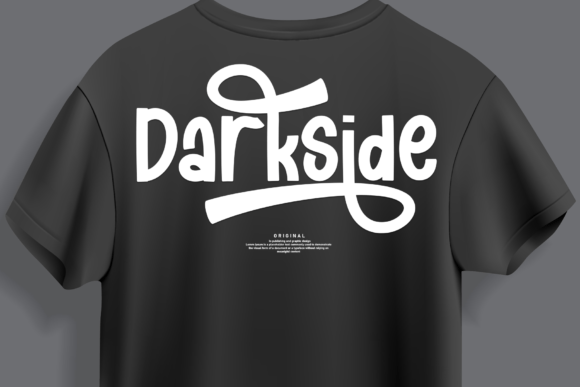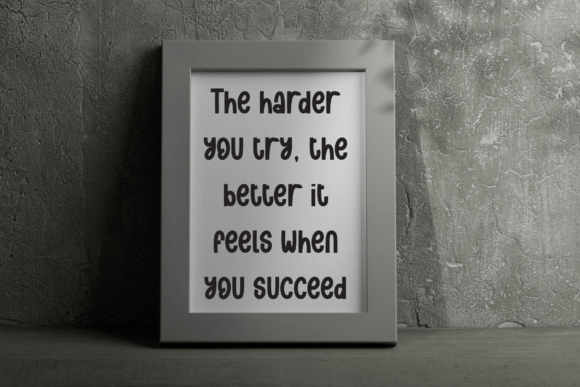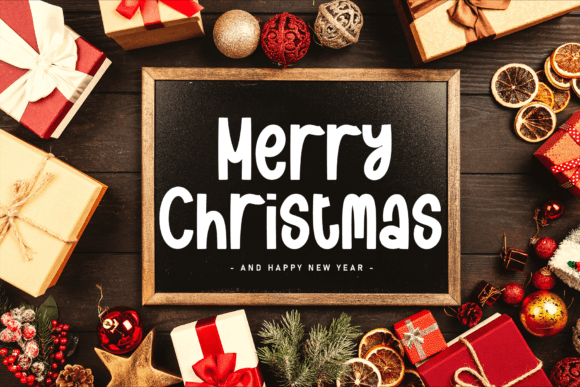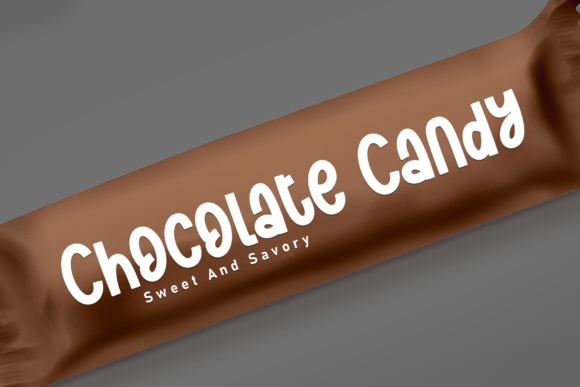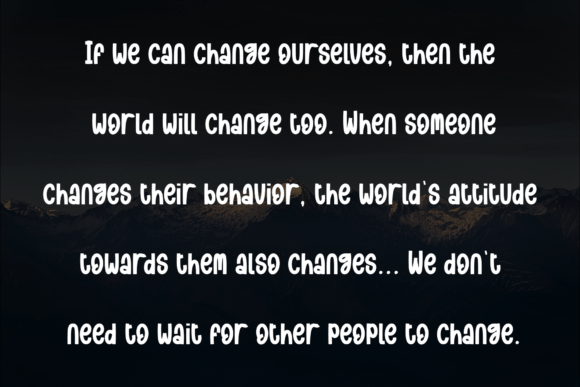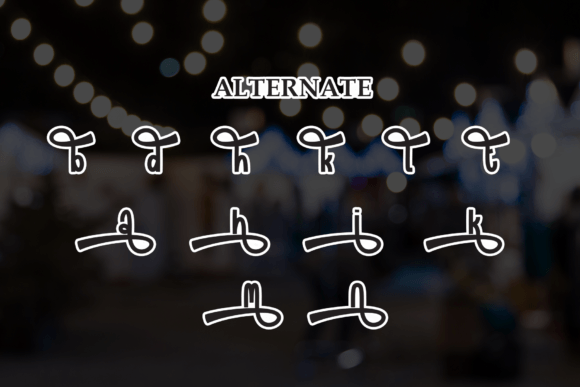
Introduction to Night Market Font Font
Fonts play a crucial role in design, and the Night Market Font font is a typeface that brings both character and versatility to any project. Whether you’re working on a branding project, a website, or a print design, the Night Market Font font offers a unique style that can elevate your work.
Night Market is a sweet and friendly handwritten font.
Key Features of Night Market Font Font
Why Choose Night Market Font Font?
The Night Market Font font is more than just a typeface – it’s a design tool that helps you communicate your message with style and clarity. Its unique character set and versatile design make it suitable for a wide range of applications, from elegant invitations to bold headlines.
With its carefully crafted letterforms and balanced proportions, the Night Market Font font ensures readability and visual appeal across all mediums.
What makes Night Market Font font special?
The Night Market Font font stands out with its unique design, exceptional readability, and versatility across various design applications.